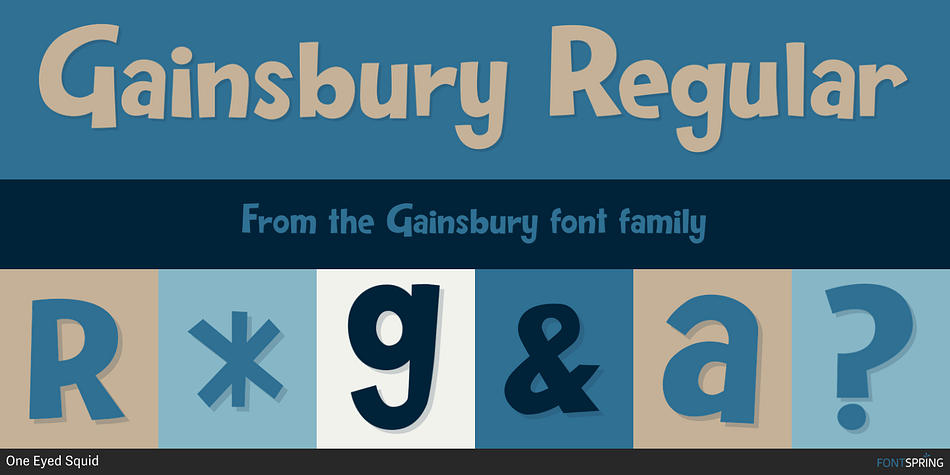
Gainsbury Regular
Designed by Dave Cohen and Brian J. Bonislawsky, Gainsbury is a display sans and hand display font family published by One Eyed Squid.
Gainsbury! A whimsical and playful font perfect for relaxed and casual designs. Its groovy and sociable vibe brings cheerfulness and personality to any project, making your text stand out with charm and flair. Ideal for fun events and lighthearted content, Gainsbury adds a touch of joyful energy to your creations.
(Gainsbury contains an extended Latin character set with added Vietnamese support.)